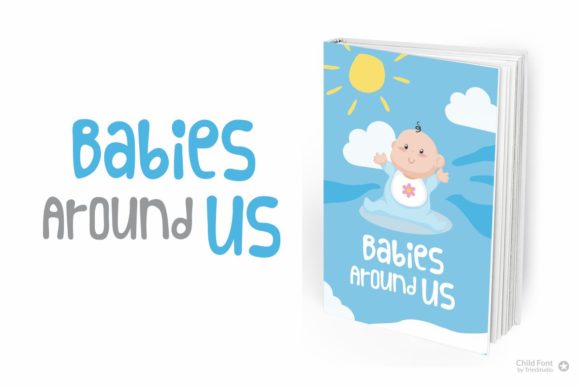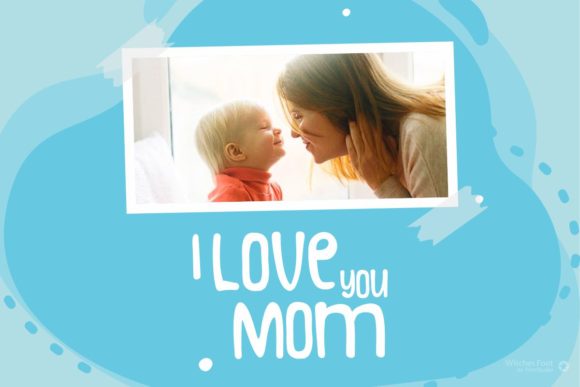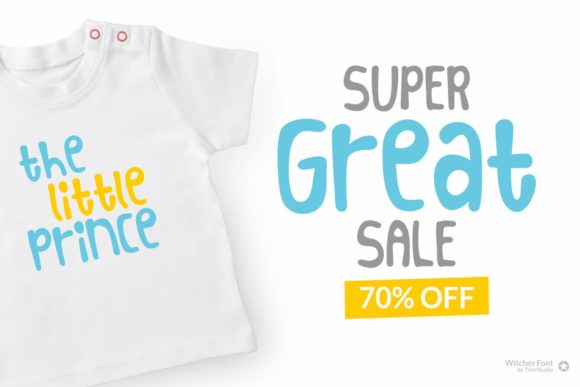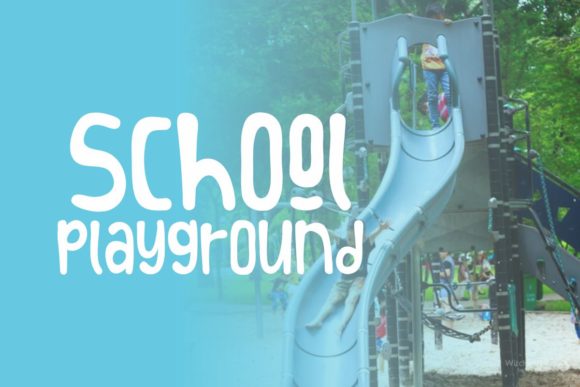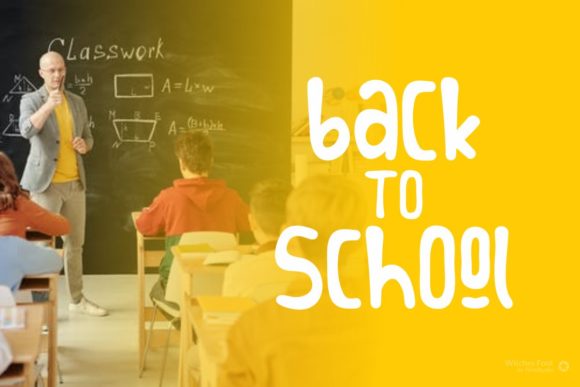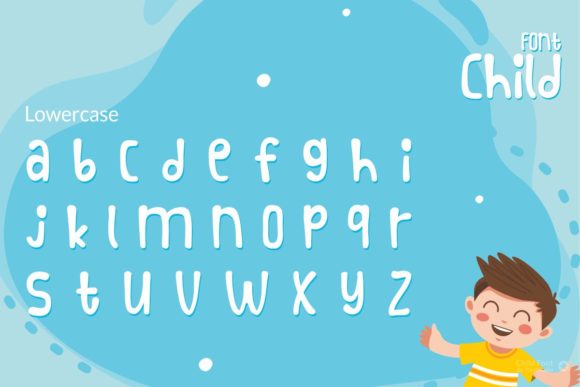
Introducing Child Font: The Playful and Whimsical Display Font for Your Designs
Are you looking for a font that can add a touch of playfulness and childish charm to your designs? Look no further than Child Font, a cute and quirky display font that’s perfect for a variety of creative projects. In this article, we’ll take a closer look at Child Font, its features, and how you can use it to bring a sense of fun and whimsy to your designs.
What is Child Font?
Child Font is a display font designed to evoke a sense of playfulness and childish wonder. With its unique and quirky letterforms, this font is sure to add a touch of personality to any design. Whether you’re working on a project for kids or simply want to add some whimsy to your adult-oriented designs, Child Font is the perfect choice.
Key Features of Child Font
• Cute and Quirky Design: Child Font features a unique and playful design that’s sure to capture the attention of your audience.
• Display Font: This font is specifically designed for use in headlines, titles, and other display text, making it perfect for adding a touch of personality to your designs.
• Playful and Childish Style: Child Font is designed to evoke a sense of playfulness and childish wonder, making it perfect for projects aimed at kids or those that require a lighthearted touch.
How to Use Child Font in Your Designs
Child Font is a versatile font that can be used in a variety of creative projects, including:
• Kids’ Party Invitations: Add a touch of whimsy to your kids’ party invitations with Child Font.
• Children’s Book Titles: Use Child Font to create eye-catching titles for your children’s book.
• Crafting and DIY Projects: Add a playful touch to your crafting and DIY projects with Child Font.
• Social Media Graphics: Use Child Font to create fun and engaging social media graphics.
Tips for Getting the Most Out of Child Font
To get the most out of Child Font, here are a few tips to keep in mind:
• Use it Sparingly: Child Font is a display font, so it’s best to use it sparingly to add emphasis to your designs.
• Pair it with Other Fonts: Pair Child Font with other fonts to create a unique and visually appealing combination.
• Experiment with Colors: Child Font looks great in bright, bold colors, so don’t be afraid to experiment and find the perfect color scheme for your design.
Font Name Child Font
Author Trim Studio
Child Font is a unique and playful display font that’s perfect for adding a touch of whimsy to your designs. With its cute and quirky letterforms, this font is sure to capture the attention of your audience and bring a sense of fun and playfulness to your projects. Whether you’re a designer, crafter, or simply someone who loves to create, Child Font is a great addition to your font library.